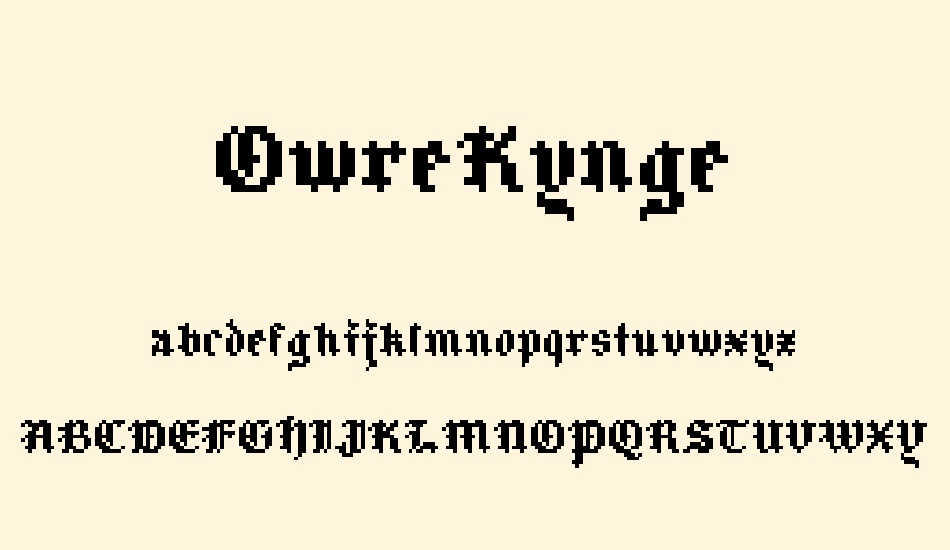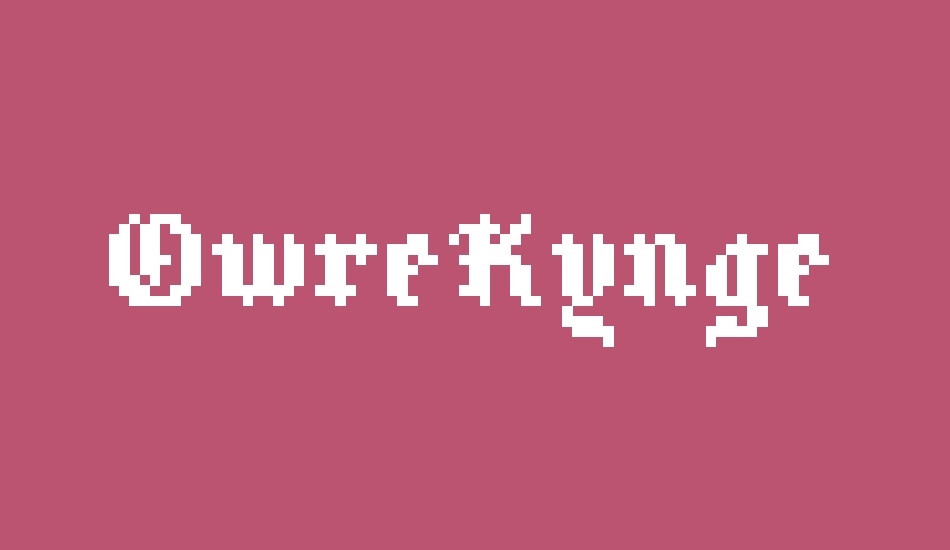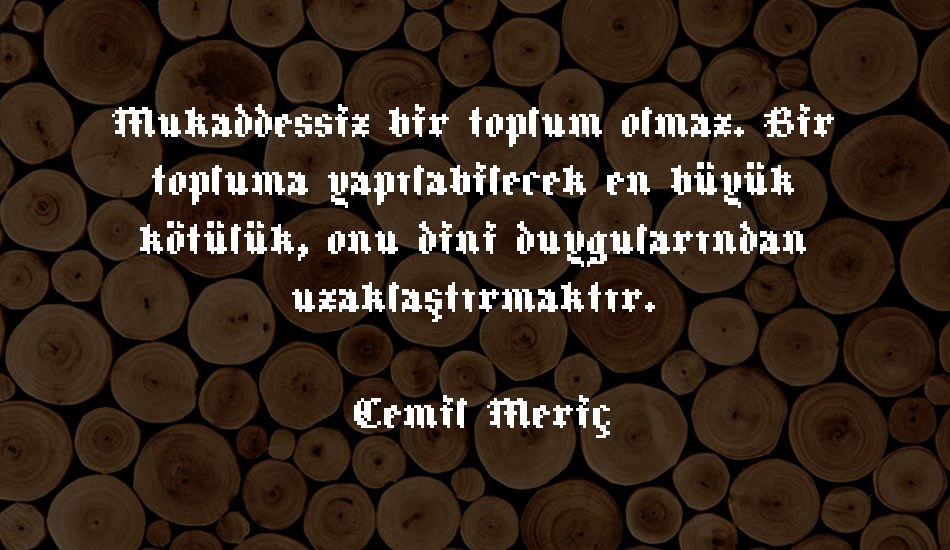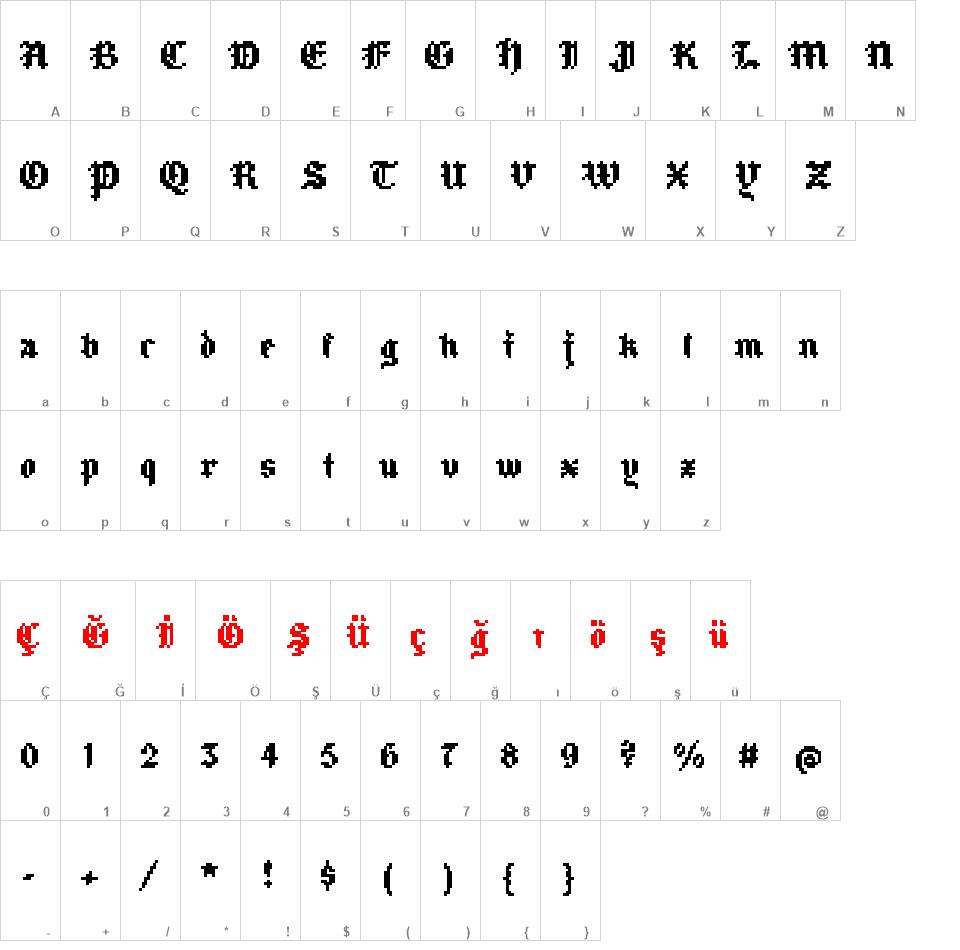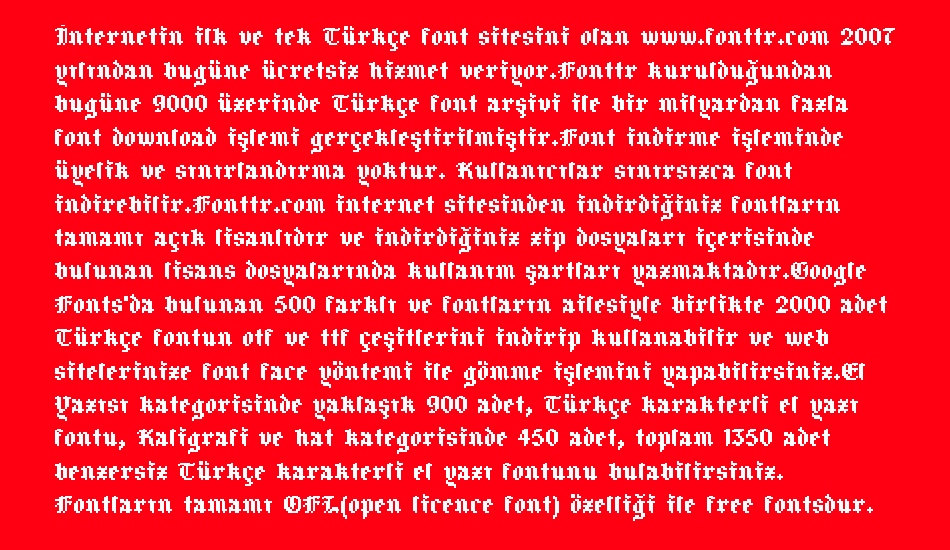
OwreKynge
Owre Kynge by jeti: Blackletter in Old English style, based on script from 15th century England. The name comes from the first line of the Agincourt Carol (also from 15th century England).
OwreKynge font